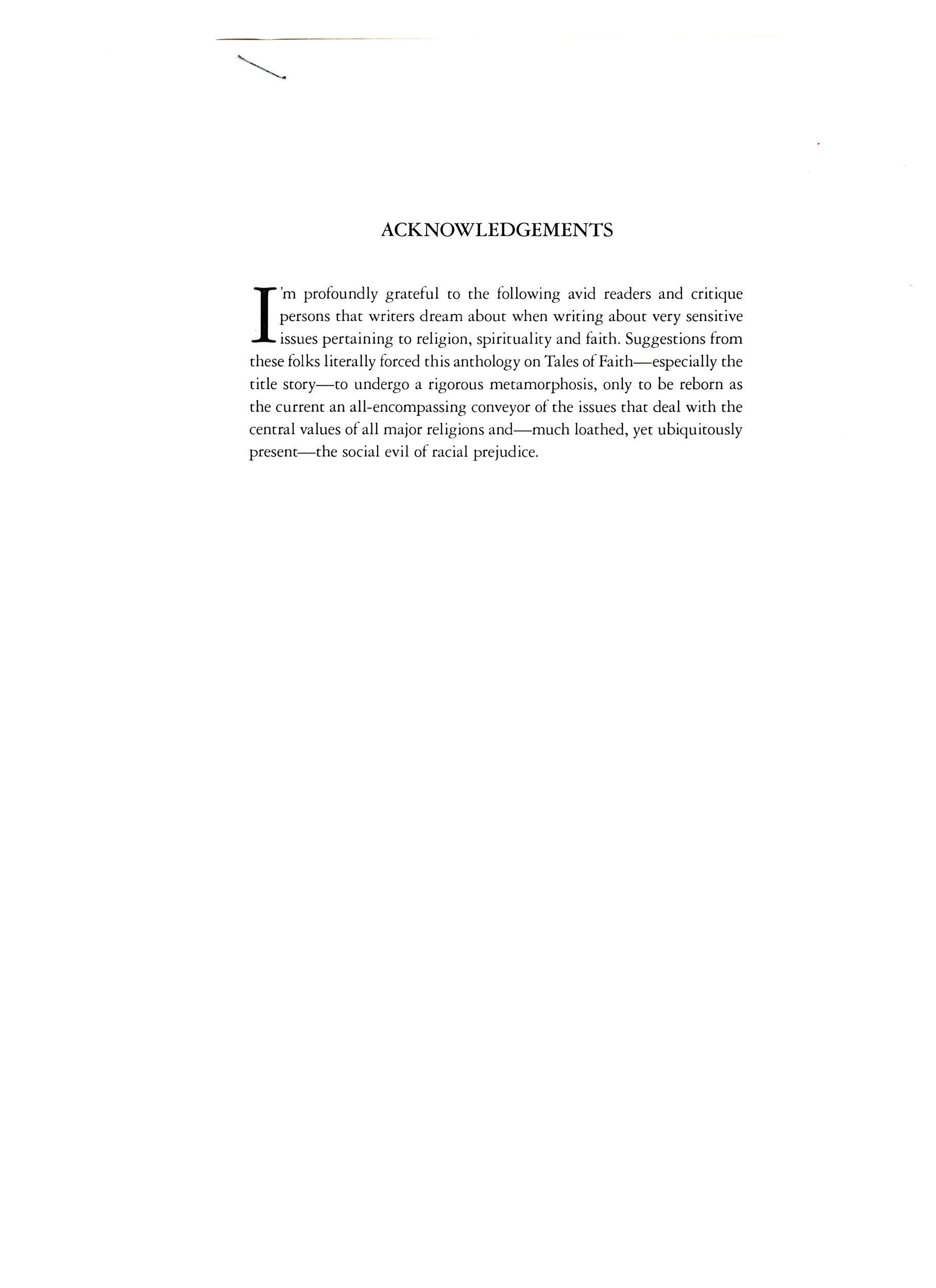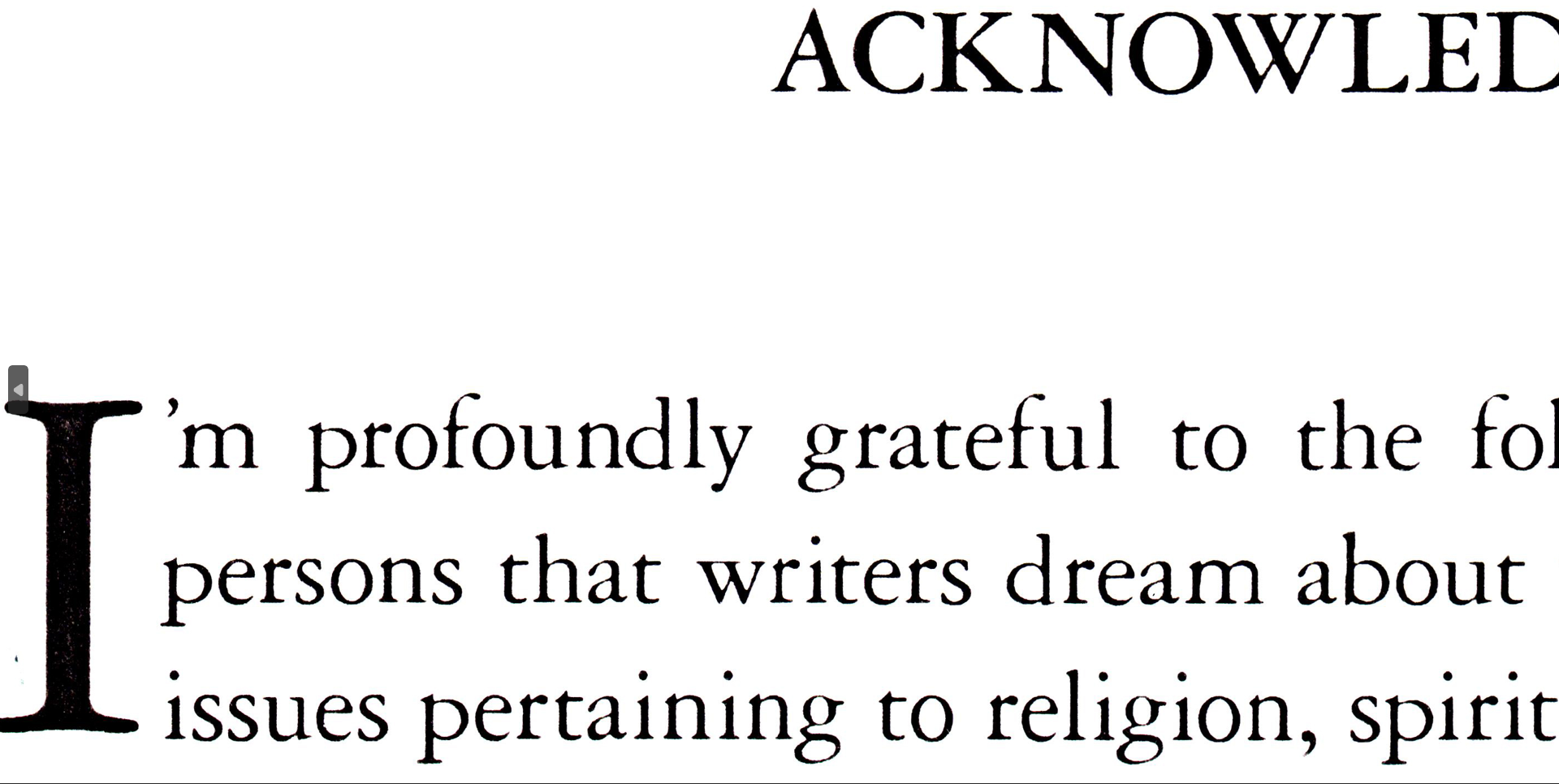
Looking for the font of this self-published book, 'Jews, Christians, Hindus and Muslims,' 2007 By Sattar Memon on Amazon
Having to start a manuscript from scratch for the author, Sattar Memon, after they were not able to locate it.  Trying to match this specific font from page 3 of the paperback book.  I am looking for a free version of this font, if not a paid-version would also work;  I would really like to get something close.
I scanned page 3 of the paperback into my PC, and then used Windows Snip to grab only the font in question: '2007,' from that image.
Attached is the first paragraph of the acknowledgements page of  Jews, Christians, Hindus and Muslims...  It appears to me to be Garamond DT Roman (thank you @Kevin_Thompson.  If someone would like to confirm that, that would be great.
This may be more clear
Yes, it appears to be Garamond DT, though Garamond 3 is nearly a match as well (and it is only $31.49 per style by comparison). Both are commercial typefaces, and require purchase to use.
EB Garamond and Cormorant Garamond are both available for free from Google Fonts.  Another open source take on EB Garamond can be found at fontlibrary.org, but I don’t know if it has a standard o alternate for the annoying heart that the lowercase “o” defaults to.
I appreciate the thinner serifs in Garamond DT Roman, and it also appears darker.
It has a refined appearance.